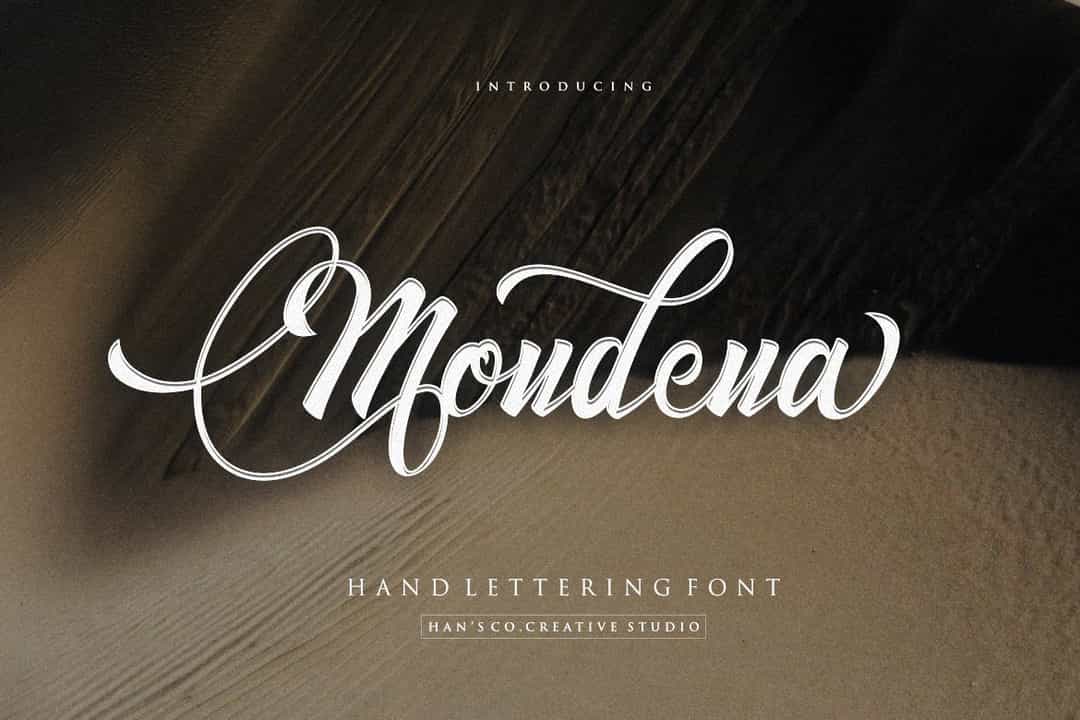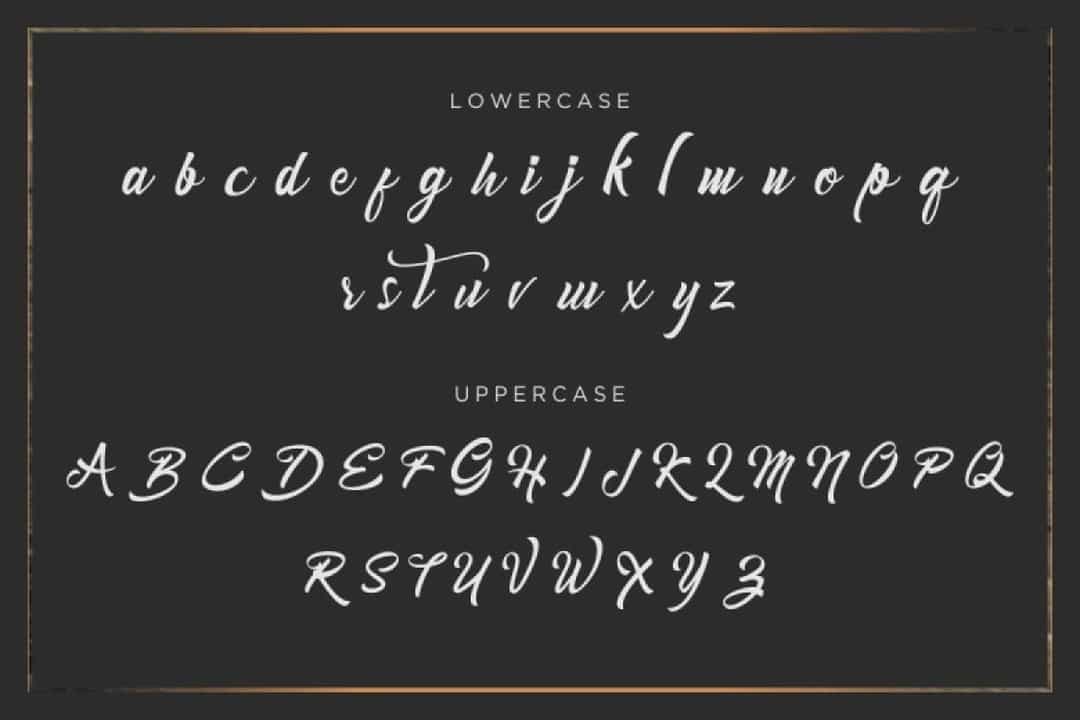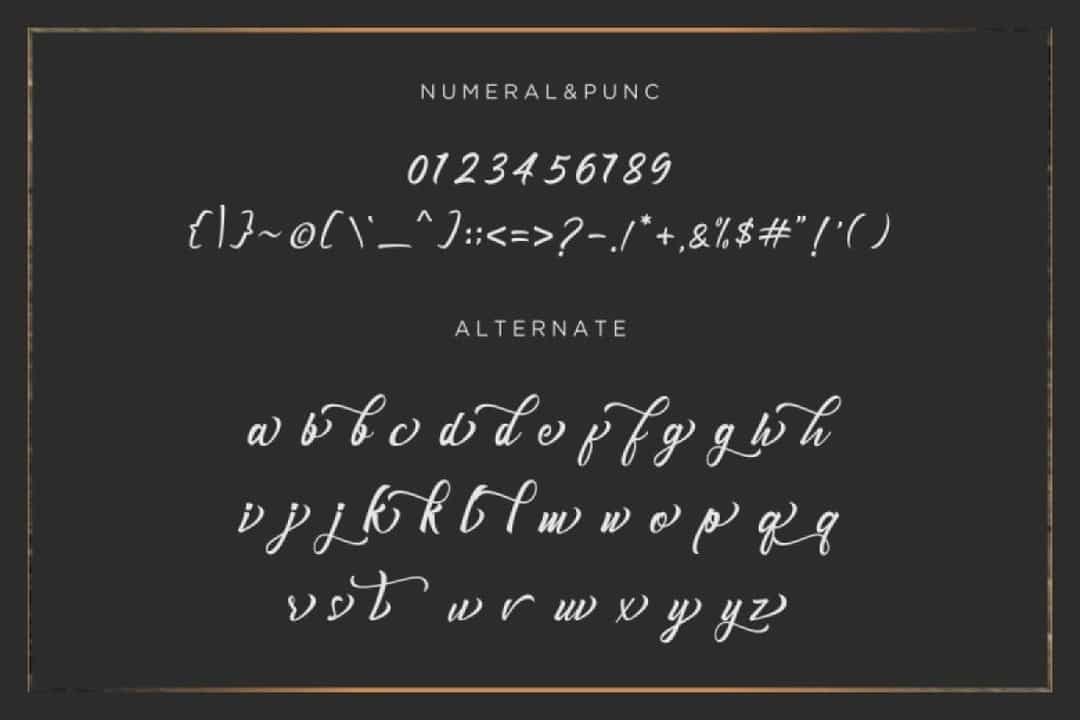
Mondena is a fun and sweet handwritten font, this is a unique, cool and modern handwritten font. It’s hand look style makes it perfect for use in all your design projects be it logos, labels, packaging design, blog headlines, Poster etc.